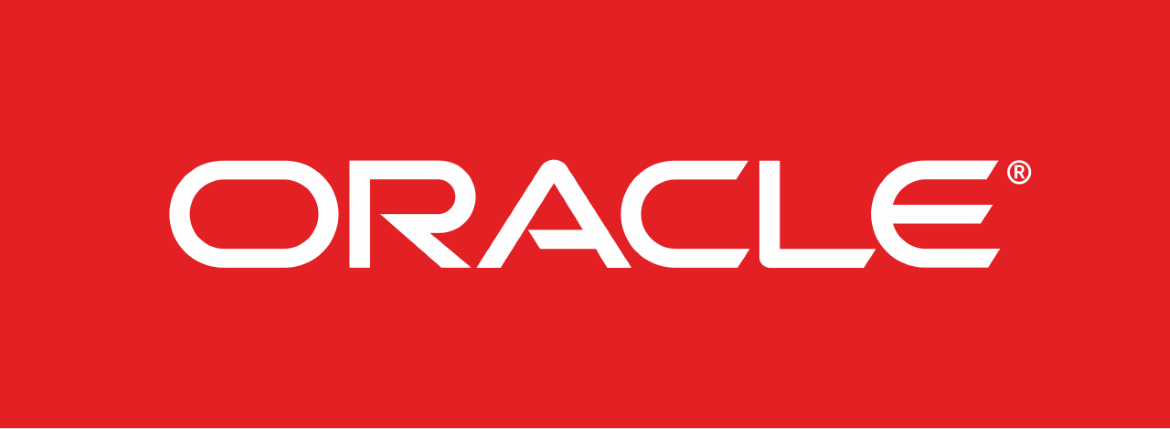
Oracle Font
The Oracle font embodies strength, precision, and corporate confidence—qualities that mirror Oracle’s position as a global technology leader. The typography used in the Oracle logo is clean and assertive, creating an immediate impression of reliability and innovation. Its bold, geometric structure conveys authority while maintaining a modern and balanced aesthetic suitable for both digital and print environments.
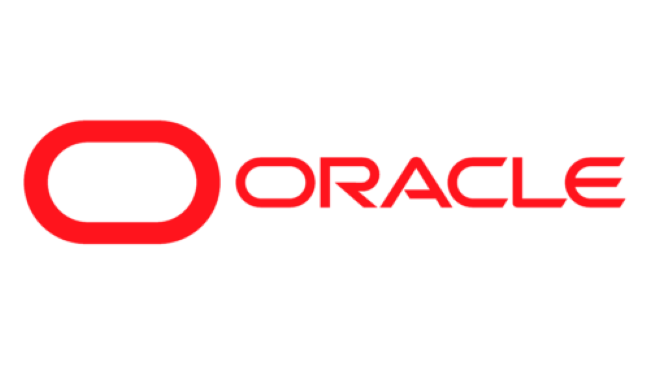
The official Oracle logo font is derived from a modified version of Helvetica Neue—a timeless sans-serif typeface known for its clarity, professionalism, and visual balance. This design choice effectively communicates Oracle’s focus on scalability and forward-thinking enterprise solutions. Fonts like Promethean and Good Times offer comparable characteristics, making them excellent alternatives for branding projects that require a sleek, high-tech feel.
About Oracle
Oracle is a multinational technology corporation specializing in database software, enterprise applications, and cloud infrastructure. Founded in 1977, it has become one of the world’s leading providers of integrated business software and hardware systems. The company’s branding, reinforced by its bold typographic identity, reflects its core values of innovation, dependability, and global influence in enterprise computing.